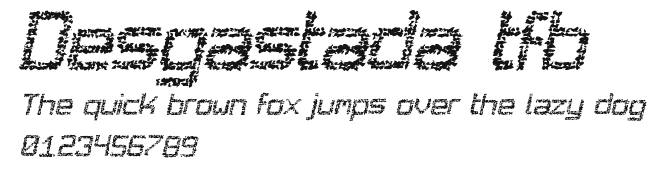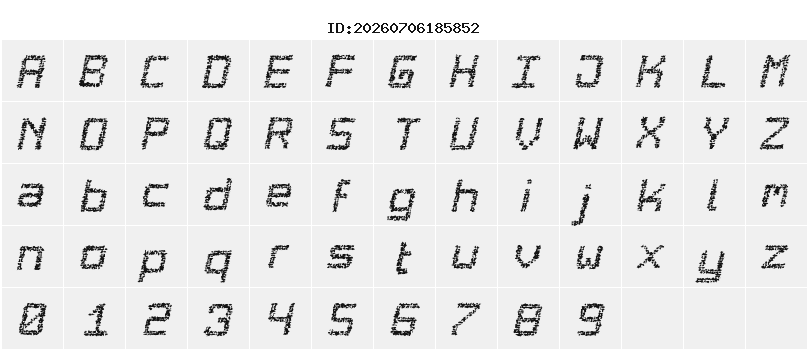
Desgastada tfb Preview
• Font Name: Desgastada tfb
• Designer: kaiser zhar khan
About Desgastada tfb.ttf
Desgastada tfb.ttf is a modern, elegant sans-serif font designed for ultimate readability and visual harmony. Perfect for branding, headlines, web design, and print materials.